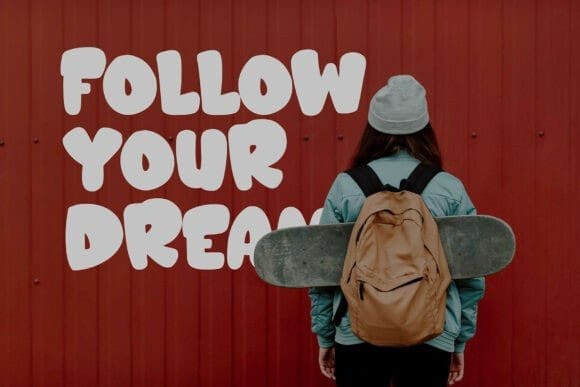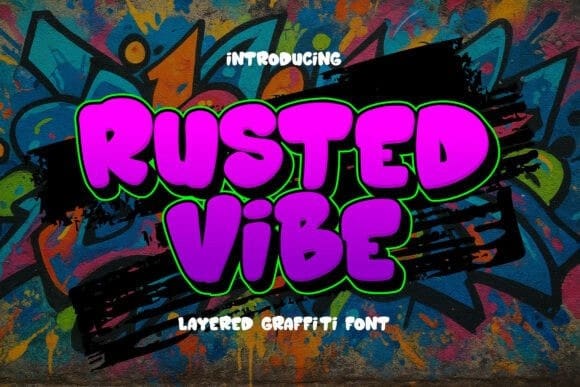
Rusted Vibe Font
Rusted Vibe Font – a graffiti-inspired typeface mixing vivacious bubble letters with an effervescent city pulse. Embolden your projects, lend them character, and infuse a prismatic depth with this font’s unique layering system. It enables the creation of endless visual symphonies, layering colors, shades, and highlights to speak your creative language.
Rusted Vibe is your magic wand to transform every poster, youth-oriented attire, social media graphic, streetwear brand, logo design, hip-hop flyer, or comic-style artwork into something extraordinary. This font is a comprehensive library, offering uppercase and lowercase letters, numerals, punctuations, multilingual support, and alternates.